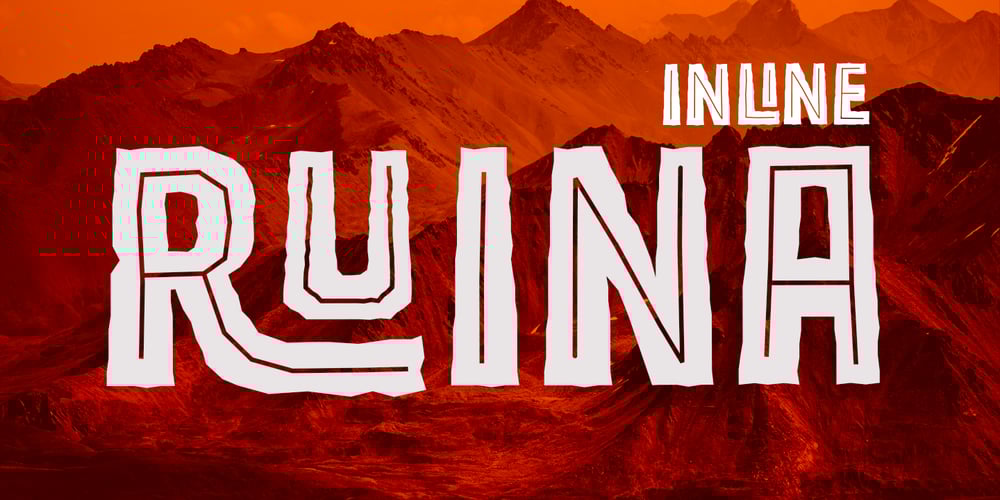
Ruina Inline Font Family was designed by Rodrigo Araya Salas and published by RodrigoTypo. Ruina Inline contains 2 styles and family package options. Ruina inline is an alternate version of Ruina, containing inline and also oblique, a very expressive font that can be seen in any casual design